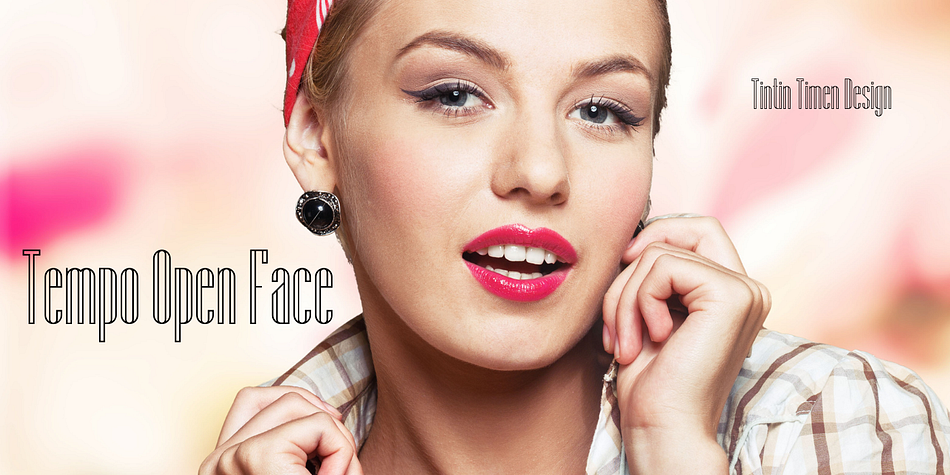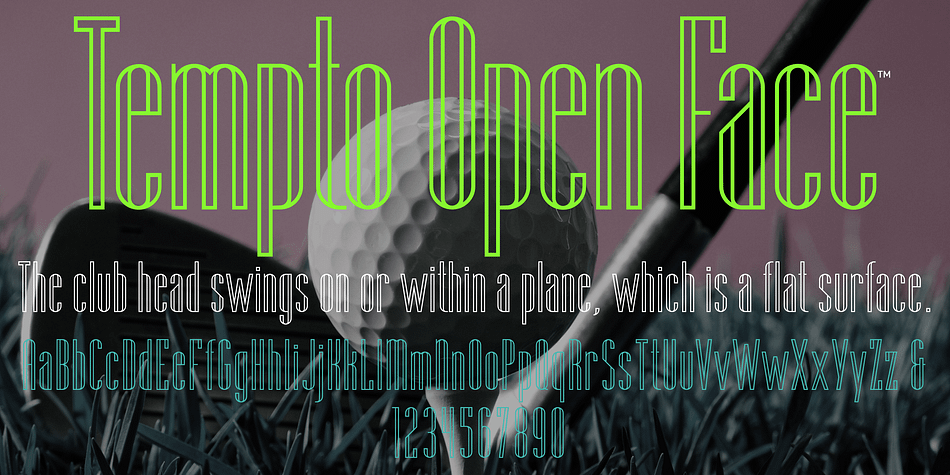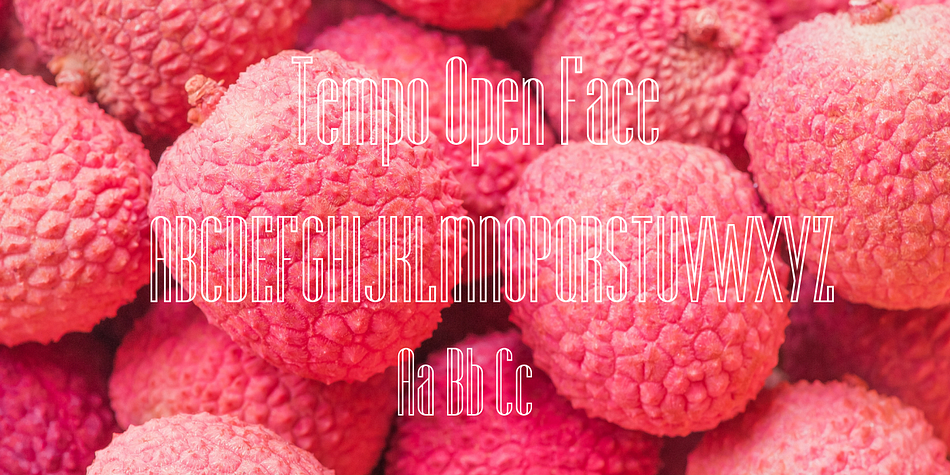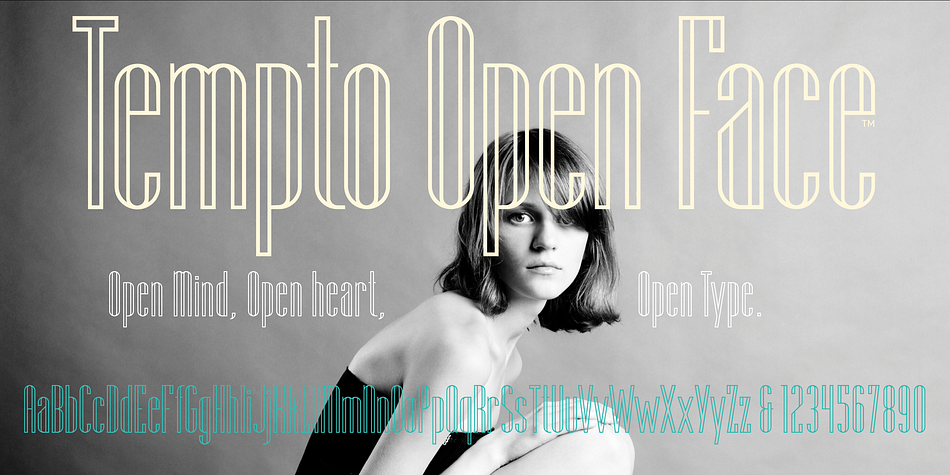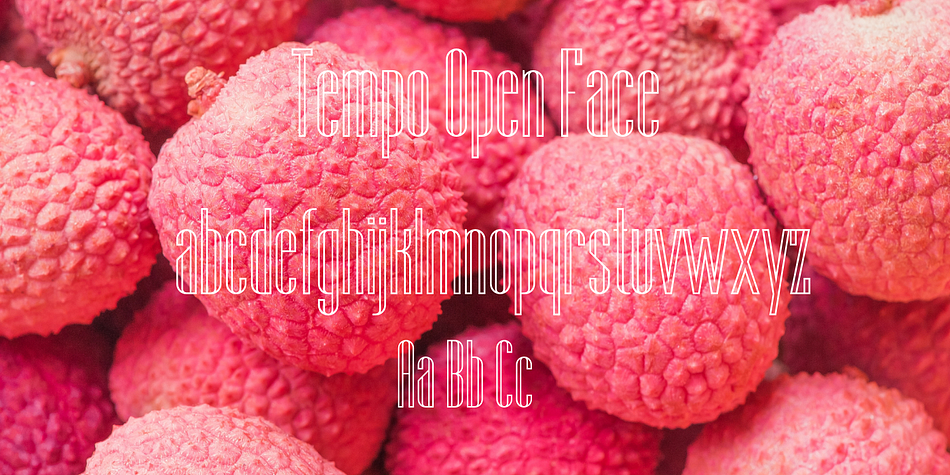
Tempo Open Face
Designed by Tintin Timen, Tempo Open Face is a display sans font published by FontHaus.
Tempto Open Face is a very condensed inline sans display font. Clean and crisp with tall x-heights. A perfect headline font or use as a powerful drop cap.